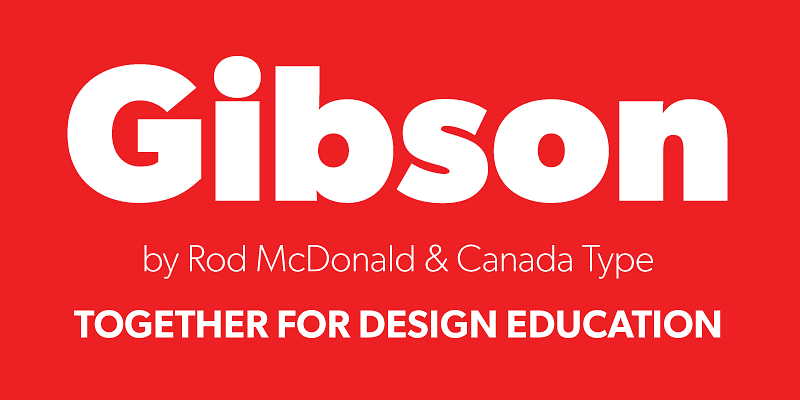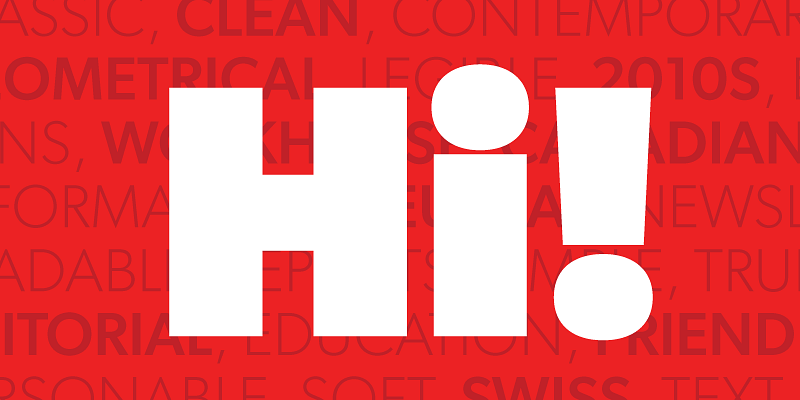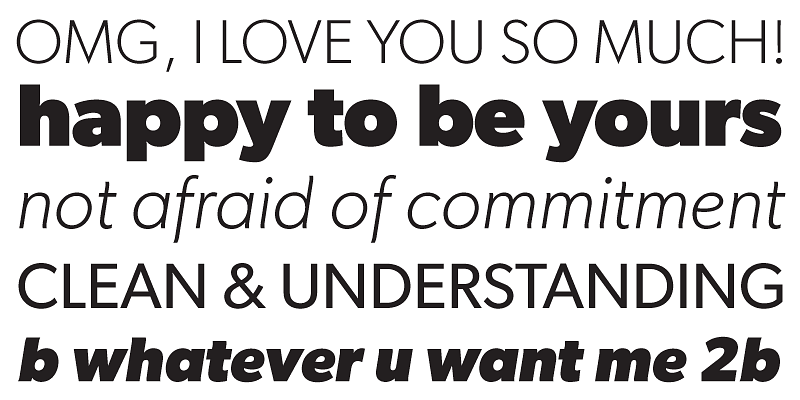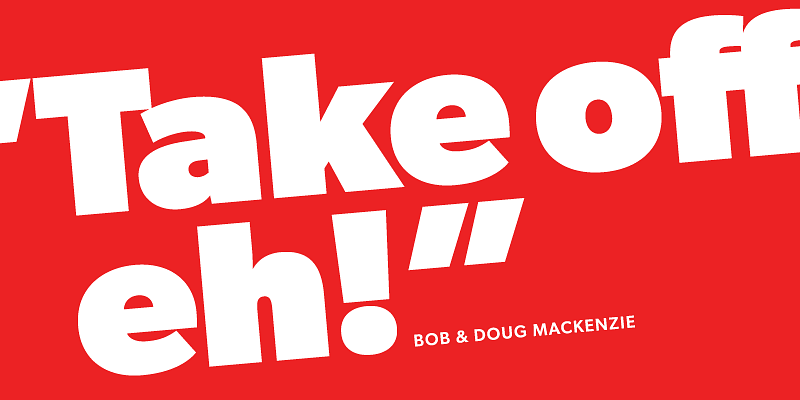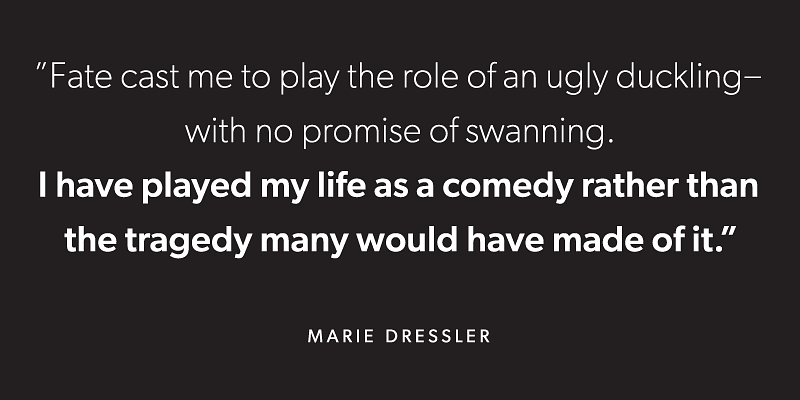
Gibson is a sturdy contemporary humanist sans serif family that fits pretty much any design application. Available in eight weights plus italics, it has been one of the 21st century’s most widely used fonts for UX and corporate design.